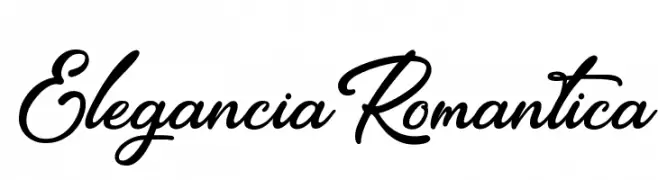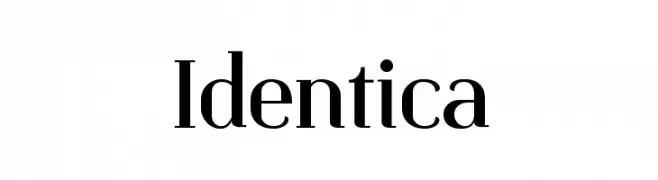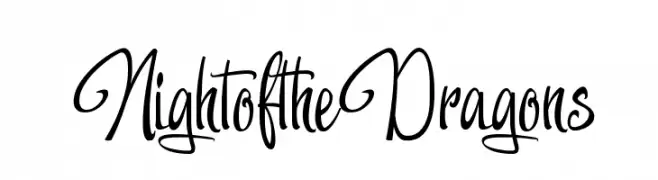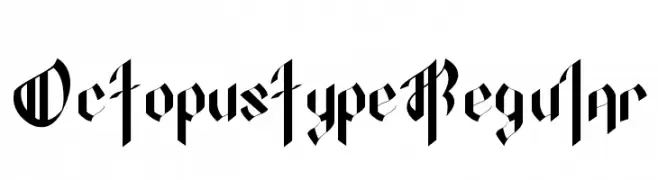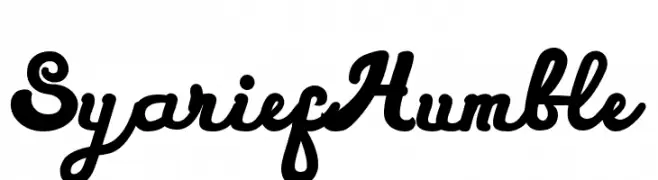
A modern serif font with elegant, refined letterforms and slight stroke contrast.
( Andreas Siess - www.andi-siess.de/ )
A modern, geometric font with thin, rounded lines and a minimalist style.
( JibbaJabba Fonts - Jibba Jabba - pages.suddenlink.net/jasonarthur/ )
A bold, geometric font with angular, blocky characters.
( JibbaJabba Fonts - Jibba Jabba - pages.suddenlink.net/jasonarthur/ )
A bold, italicized font with angular, forward-leaning characters.
( Octotype - www.foundmyfont.com/ )
A cursive font with elegant, flowing letters and sophisticated flourishes.
( Octotype - www.foundmyfont.com/ )
A dynamic and flowing script font with elegant cursive letterforms.
( Octotype - www.foundmyfont.com/ )
An elegant, flowing script font with ornate uppercase and cohesive lowercase characters.
( Pathero Studio - www.patherostudio.com )
A dynamic, hand-drawn font with elongated strokes and a playful, modern style.
( Pedro Vitale )
A bold, blackletter font with sharp, angular strokes and intricate details.
( SSI.Scraps - Syukur Setiyadi - www.creativefabrica.com/designer/syukursetiyadi/ )
A bold, cursive font with interconnected letters and a playful, dynamic style.